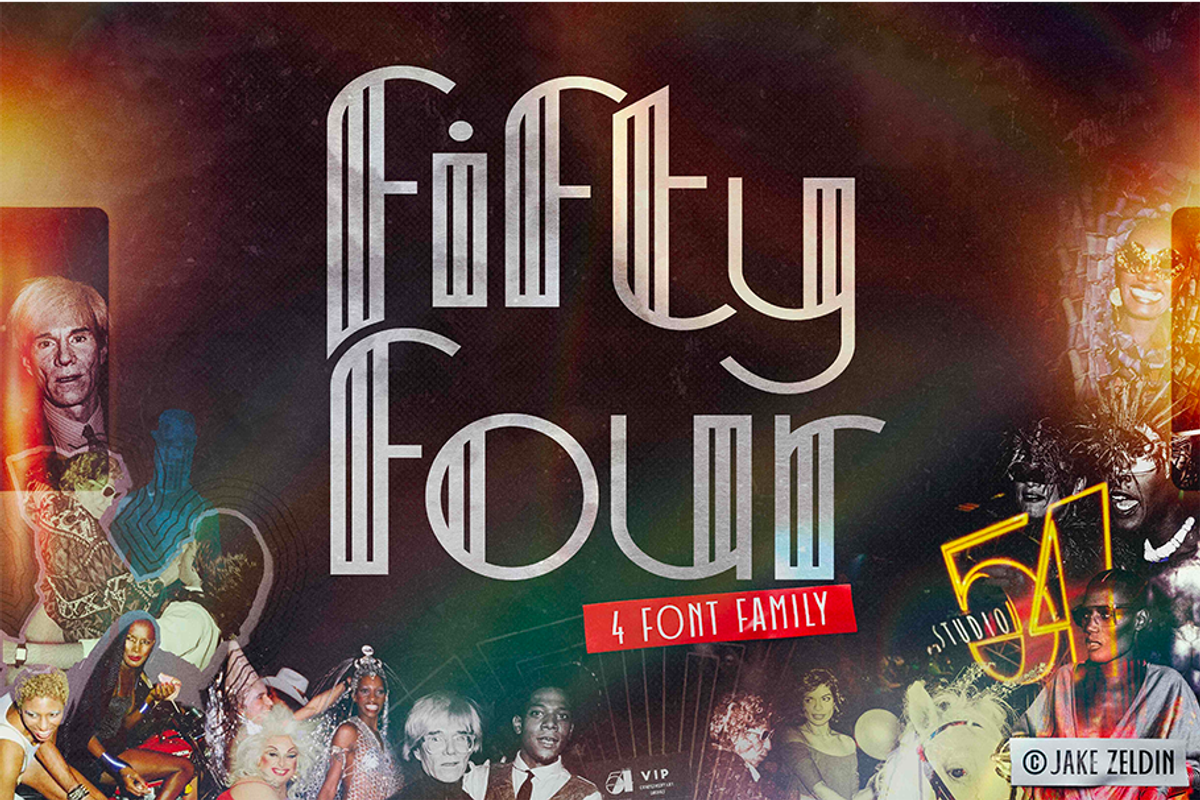
FiftyFour - Vintage Font Family
FiftyFour is an art deco-themed display font family, constructed of consistent and clean lines with 4 font styles. FiftyFour is inspired by the ambiance and aesthetic of Studio 54, a legendary New York nightclub during the 1970s. This typeface is Unique and is perfect for logos, badges, posters, typography and any retro design and retro display type needs.
- 4 Fonts (Light, Light Rough, Regular (Lined), Regular (Filled))